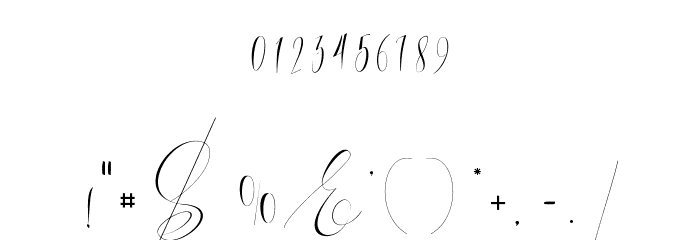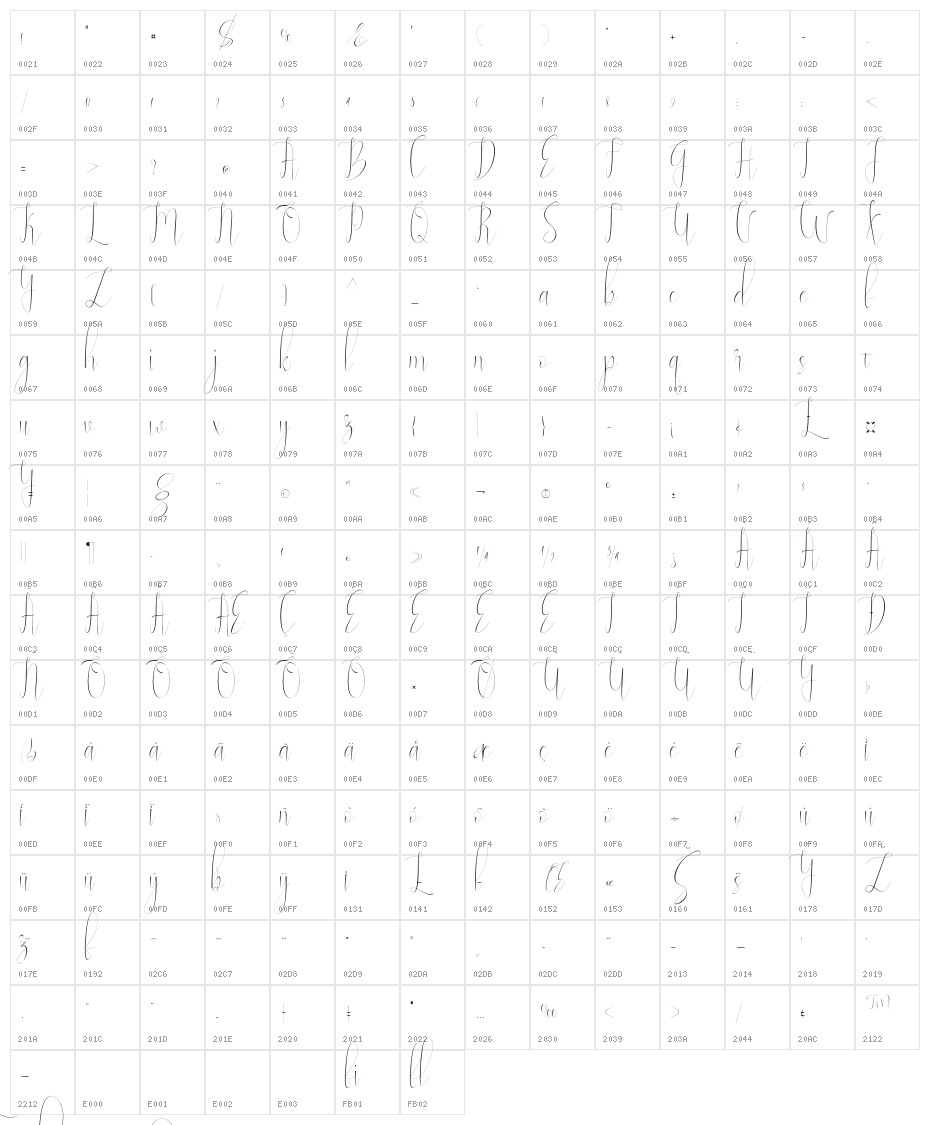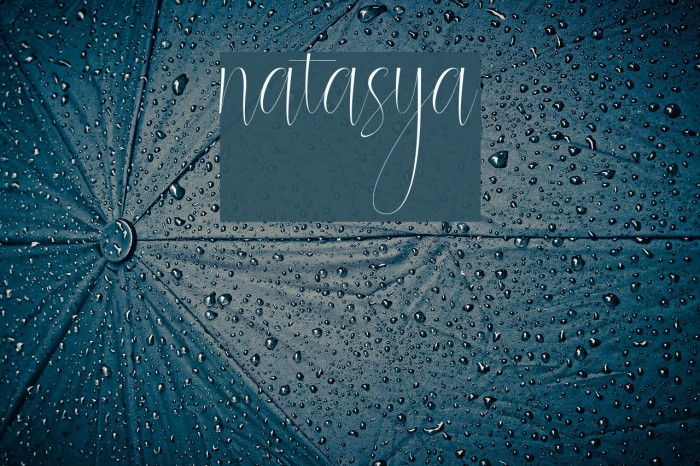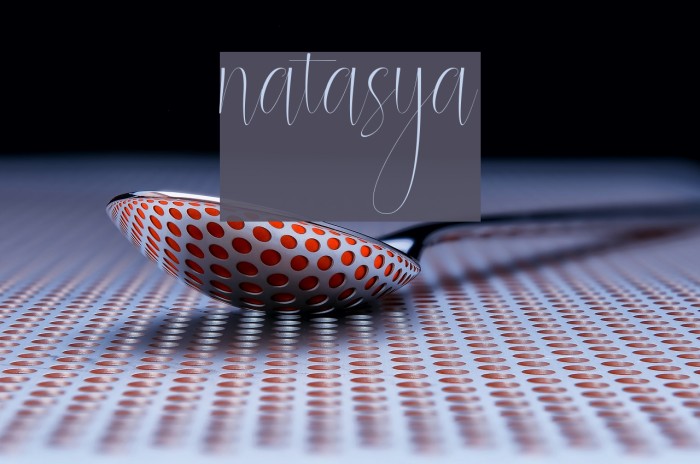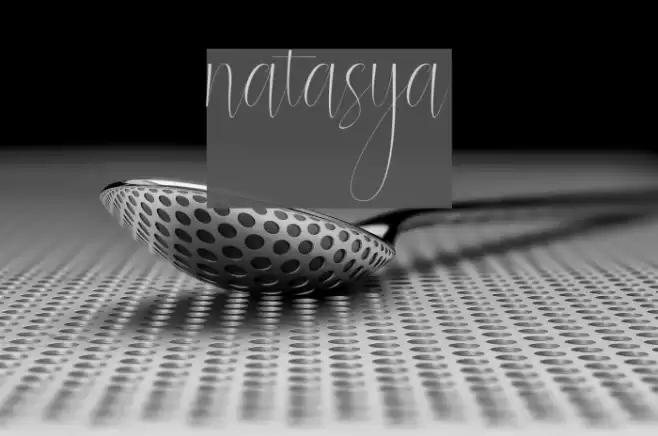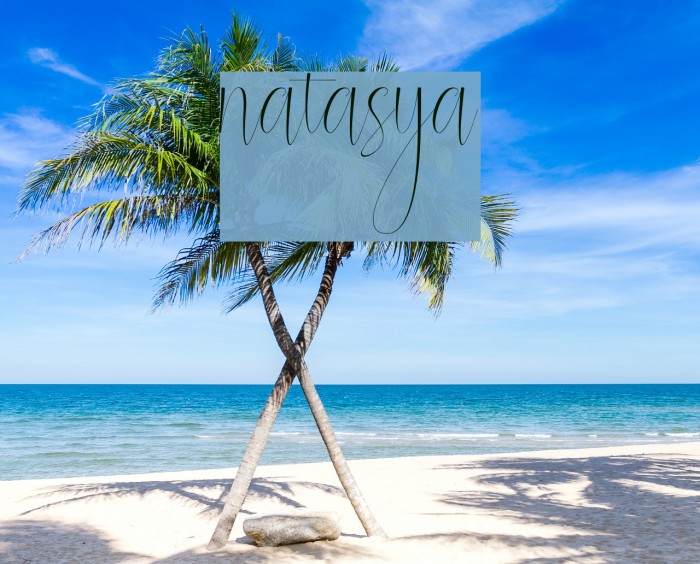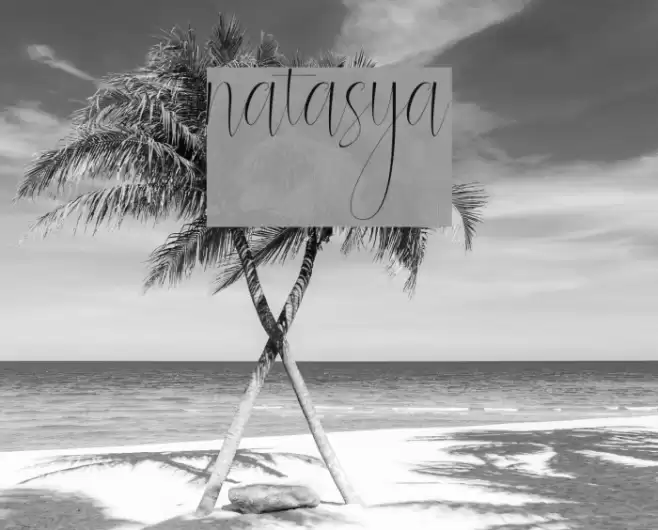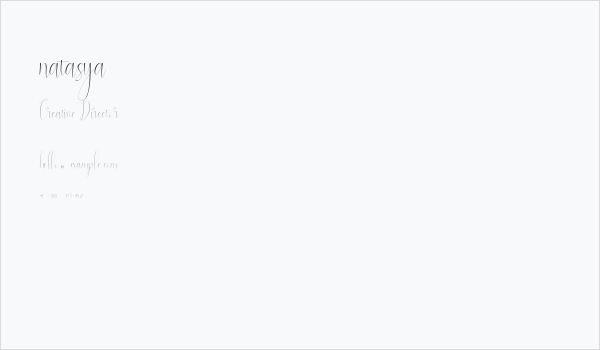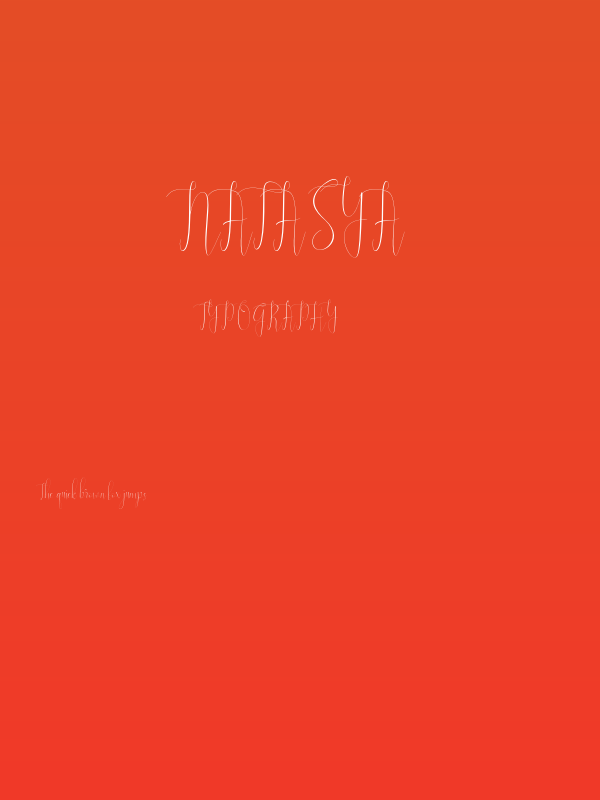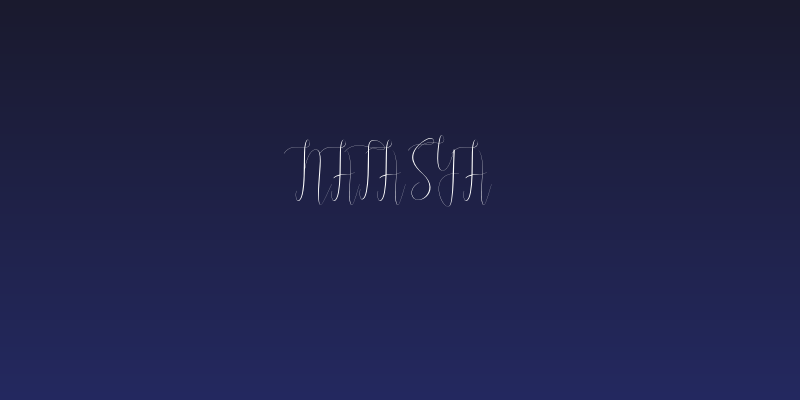
natasya Font
natasya Description
This elegant script font features a delicate and flowing design, characterized by its thin, graceful strokes and high contrast between thick and thin lines. The uppercase letters are ornate, with sweeping curves and loops that give a sense of movement and fluidity. The lowercase letters maintain this elegance, with a slightly more restrained style that ensures readability while still offering a touch of sophistication. The numerals and special characters are consistent with the overall aesthetic, providing a cohesive look across all elements. This font is perfect for projects that require a touch of elegance and refinement.
| Proposed Projects | Ideal for wedding invitations, luxury branding, elegant packaging, and high-end editorial design. |